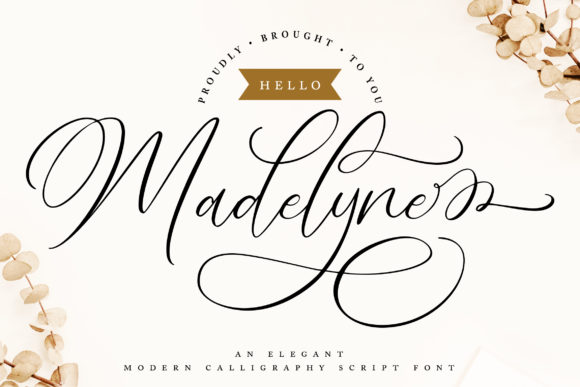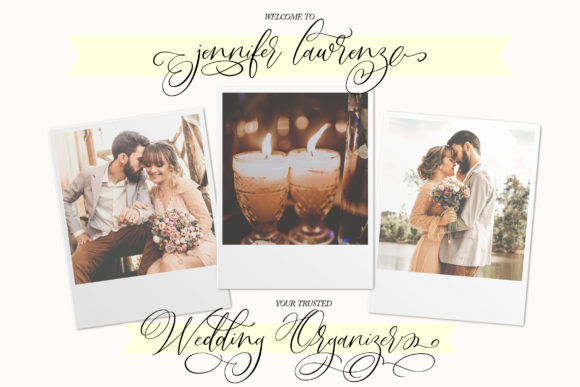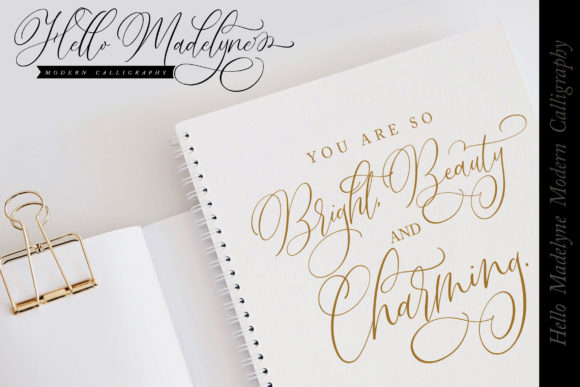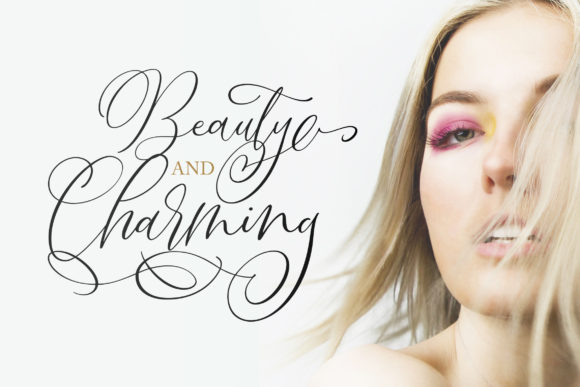
Hello Madelyne Font
About the Hello Madelyne Font
From logos to headlines, the Hello Madelyne Font is the perfect choice for making a lasting impression. Hello Madelyne is a romantic and beautiful handwritten font. It looks adorable on personalized designs such as invitations, thank you cards, quotes, greeting cards, logos, business cards and so much more.
Its delicate, flowing forms make it ideal for projects requiring a touch of feminine charm, such as wedding stationery, branding for beauty products, or packaging for artisanal goods. Hello Madelyne excels in short text applications where its romantic character can shine.
However, its script nature and varying stroke weights render it unsuitable for body text or UI elements where readability is paramount. Avoid using it for large blocks of text or situations demanding high legibility.
Pair Hello Madelyne with a clean sans-serif like Montserrat for a balanced contrast, or a classic serif such as Garamond for a more traditional feel. For a modern twist, consider pairing it with a geometric sans-serif font. The overall personality is romantic, elegant, and softly feminine.
Hello Madelyne Font Usage Examples
Hello Madelyne Font Example